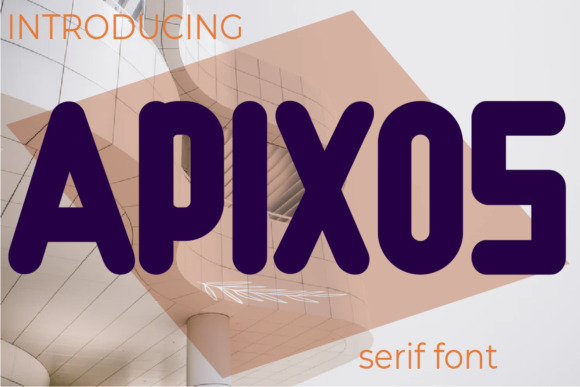
The Ultimate Guide to Apixos Font: Elevate Your Designs with a Cool, Bold, and Thick Lettered Display Font
I’ll never forget the time I was working on a project for a client who wanted a bold, eye-catching font to make their brand stand out. I scoured the internet, trying out font after font, but nothing seemed quite right. That was until I stumbled upon Apixos Font. This cool, bold, and thick lettered display font has been a game-changer for my designs, and I’m excited to share its awesomeness with you! 😊
An Honest Review of Apixos Font
What I Love About Apixos Font ✨
- 💥 **Impactful and attention-grabbing**: Apixos Font is perfect for making a statement with your designs. Its bold and thick letters demand attention and leave a lasting impression.
- 🎨 **Versatile and minimalist**: Despite its bold nature, Apixos Font has a clean and minimalist aesthetic that works well with a variety of design styles.
- 🚀 **Futuristic feel**: The font’s sleek lines and geometric shapes give it a futuristic vibe that’s perfect for tech, innovation, or forward-thinking brands.
- ✅ **Easy to read**: Despite its boldness, Apixos Font remains surprisingly legible, even at smaller sizes.
- ⚠️ **Limited use cases**: Apixos Font is a display font, which means it’s best suited for headlines, titles, and short text snippets. It may not be the best choice for body text or longer content.
- 🤔 **Glyph limitations**: While Apixos Font has a range of glyphs and OpenType features, it may not have every special character or symbol you need.
The Backstory of Apixos Font
Apixos Font was designed by a team of creatives who wanted to create a font that would make a statement. Inspired by the futuristic and innovative designs of the tech world, they crafted a font that’s both bold and beautiful. With its sleek lines and geometric shapes, Apixos Font is the perfect choice for designers who want to add a touch of futurism to their work.
Q: What is Apixos Font best used for?
Apixos Font is best used for display purposes, such as headlines, titles, and short text snippets. Its bold and attention-grabbing nature makes it perfect for making a statement.
Q: Is Apixos Font easy to read?
Yes, despite its boldness, Apixos Font remains surprisingly legible, even at smaller sizes. However, it’s still best suited for short text snippets rather than body text or longer content.
Q: Is Apixos Font available in different styles?
Apixos Font is a single font, but it does come with a range of glyphs and OpenType features that allow for some variation and customization.